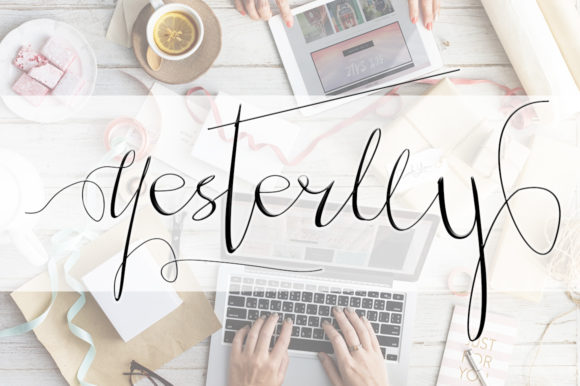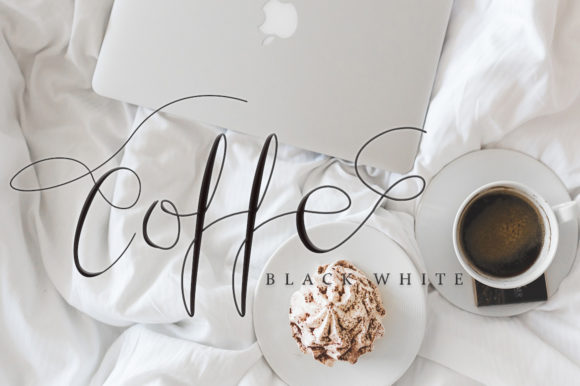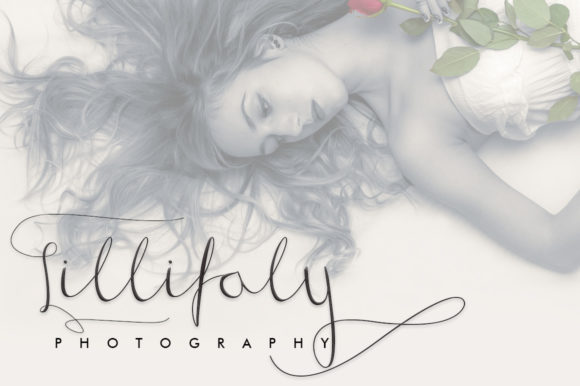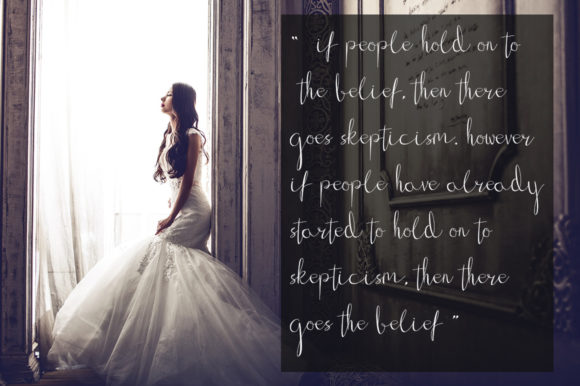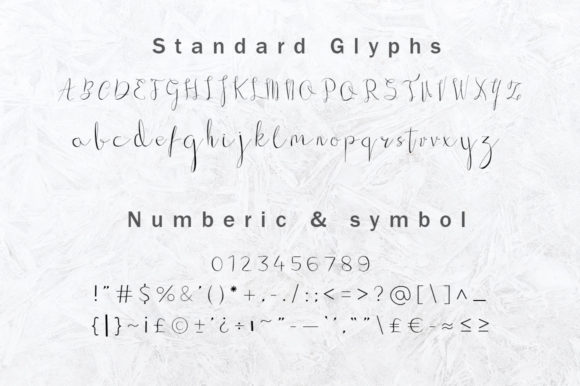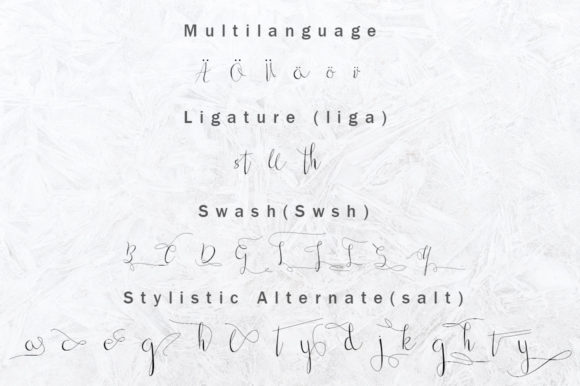
Introducing Gillithig Font: A Fresh and Modern Handwritten Calligraphy Style
Are you tired of using the same old fonts in your designs? Look no further! Gillithig Font is a beautiful, fresh, and modern font that features a handwritten calligraphy style, perfect for adding a touch of elegance and sophistication to your projects. Packed with decorative characters, Gillithig Font is a versatile and creative font that is sure to take your designs to the next level.
What is Gillithig Font?
Gillithig Font is a carefully crafted font that showcases a unique and stylish handwritten calligraphy style. With its flowing lines and delicate curves, this font is perfect for creating beautiful and eye-catching designs. Whether you’re a designer, crafter, or simply someone who loves to create, Gillithig Font is an excellent addition to your font collection.
Key Features of Gillithig Font
- Handwritten Calligraphy Style: Gillithig Font features a beautiful, handwritten calligraphy style that adds a touch of elegance and sophistication to any design.
- Decorative Characters: This font is packed with decorative characters, including swashes, ligatures, and alternates, giving you endless creative possibilities.
- Fresh and Modern: Gillithig Font is a fresh and modern take on traditional calligraphy, making it perfect for designers and crafters who want to stay on-trend.
- Versatile: This font can be used for a wide range of projects, from wedding invitations and stationery to branding and advertising.
Gillithig Font is an excellent choice for designers and crafters who want to add a personal touch to their projects. With its unique and stylish handwritten calligraphy style, this font is perfect for:
- Wedding Invitations and Stationery: Create beautiful and elegant wedding invitations, save-the-dates, and stationery with Gillithig Font.
- Branding and Advertising: Use Gillithig Font to create eye-catching logos, business cards, and advertising materials that stand out from the crowd.
- Digital Crafts: Add a touch of elegance to your digital crafts, such as printable art, planners, and journals, with Gillithig Font.
Tips for Using Gillithig Font
To get the most out of Gillithig Font, here are a few tips:
- Experiment with Different Sizes: Try using Gillithig Font in different sizes to create visual interest and hierarchy in your designs.
- Mix and Match with Other Fonts: Combine Gillithig Font with other fonts to create a unique and stylish typography combination.
- Play with Decorative Characters: Take advantage of the decorative characters in Gillithig Font to add a touch of elegance and sophistication to your designs.